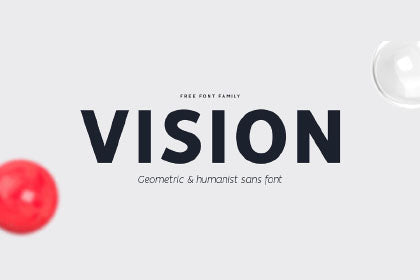
Free Vision Sans Font Family
Download and enjoy this free vision sans font family. Cool typeface to showcase your designs in a modern way. Download this font from the original source of Free Design Resources. Amaze your fellow designers and create stunning designs with this fancy font.